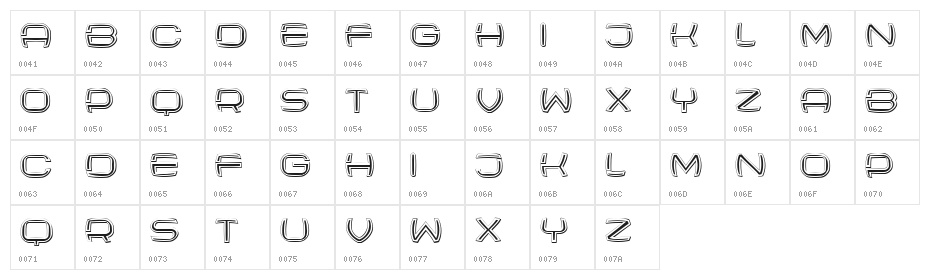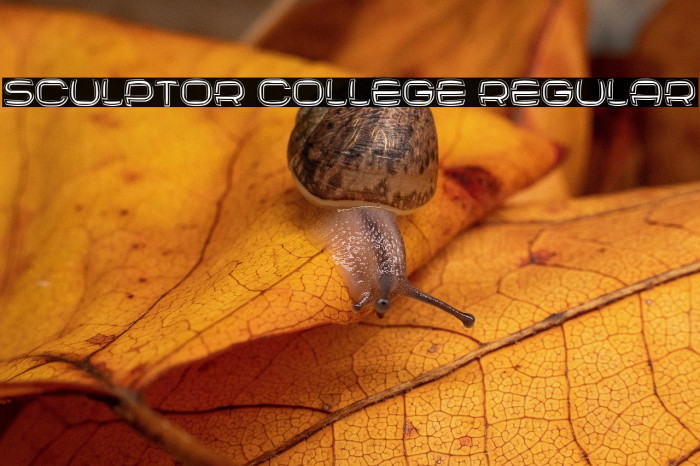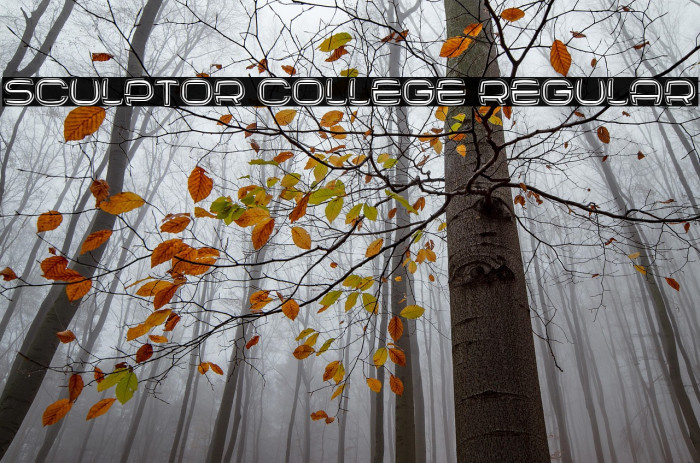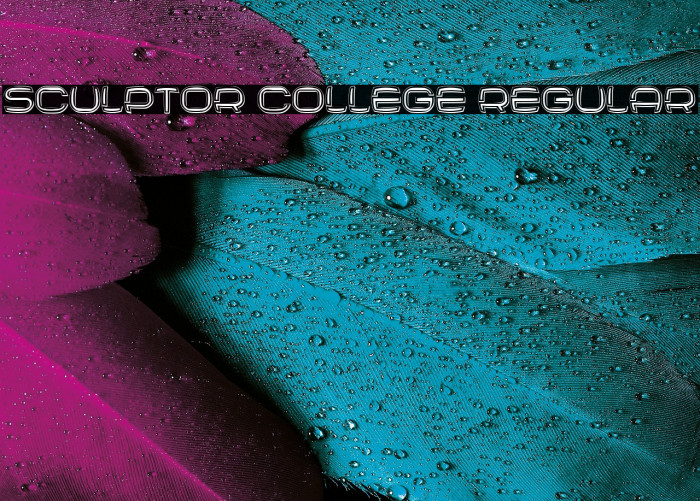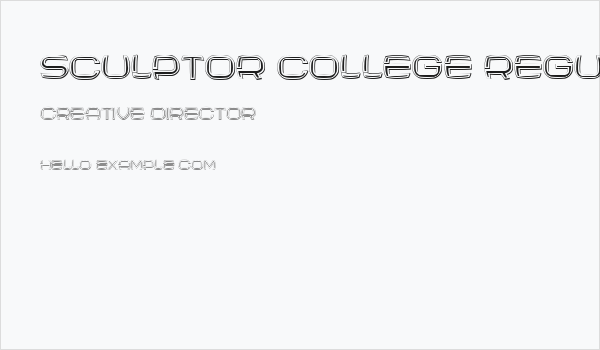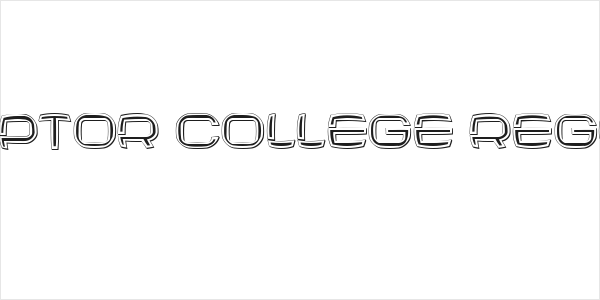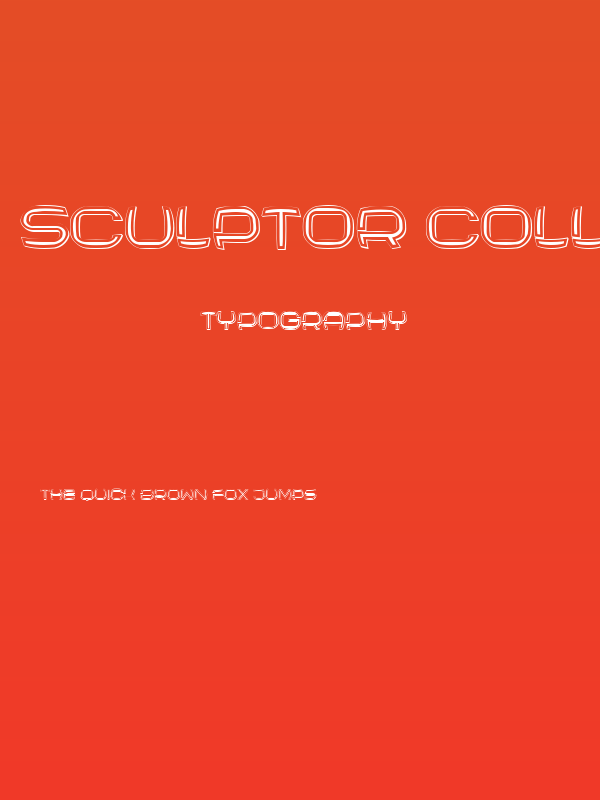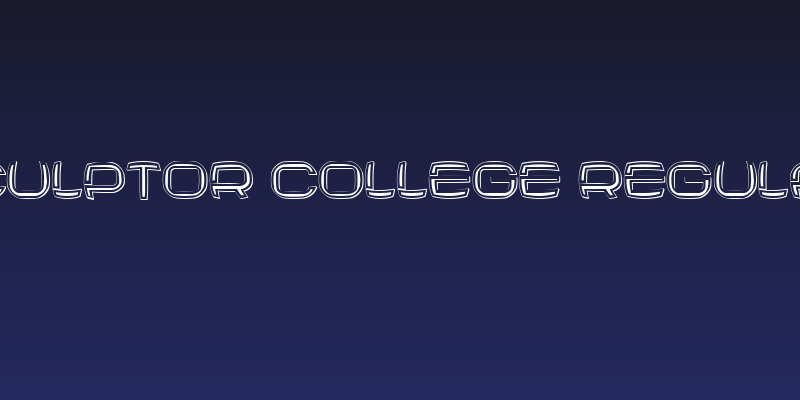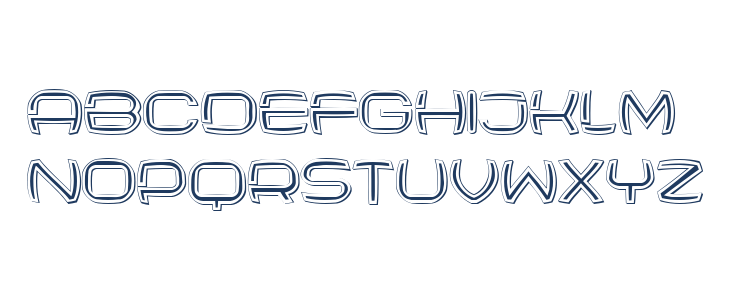
Sculptor College Regular Font
Sculptor College Regular Description
This font features a bold and modern design with a unique outline style that gives it a three-dimensional appearance. The characters are uppercase, with a consistent width and a geometric structure that emphasizes clean lines and sharp angles. The font's distinct outline adds a layer of depth, making it stand out in any design. The spacing between characters is normal, ensuring readability while maintaining its decorative appeal. This font is ideal for projects that require a strong visual impact, such as posters, headlines, and branding materials.
| Proposed Projects | Ideal for posters, headlines, branding, and any project requiring a strong visual impact. |